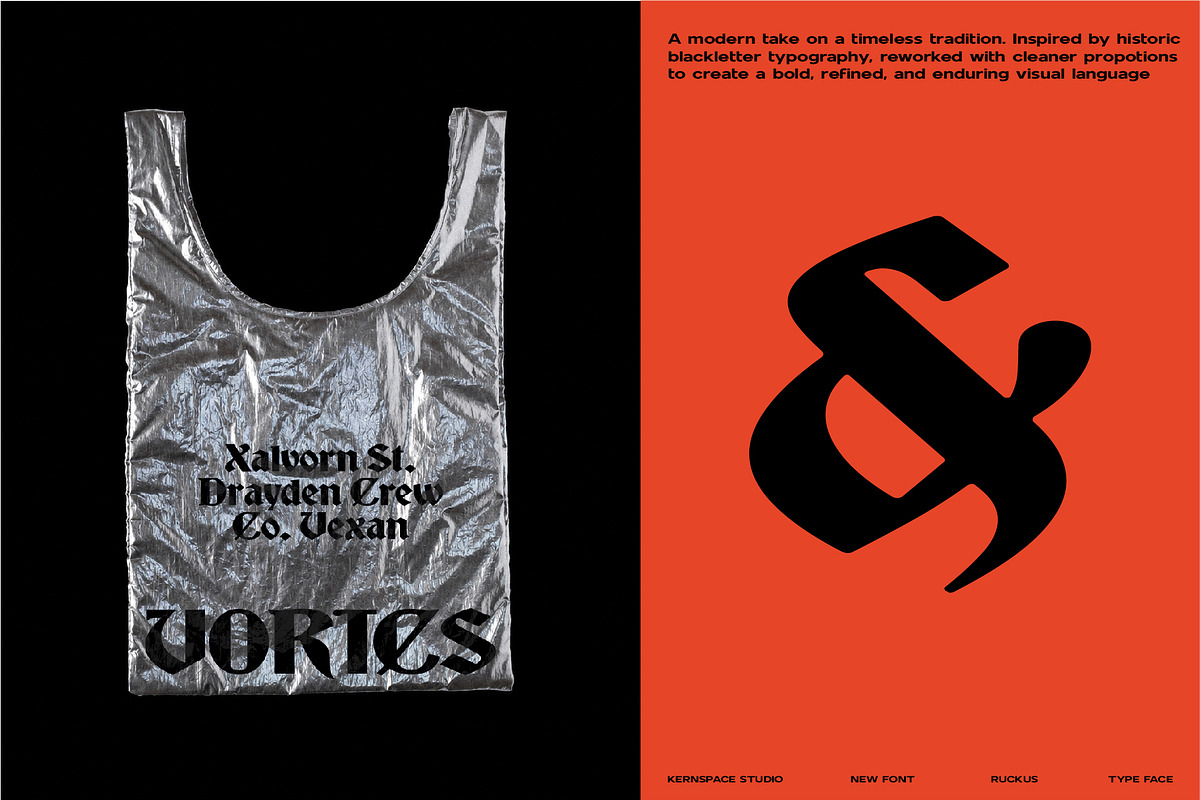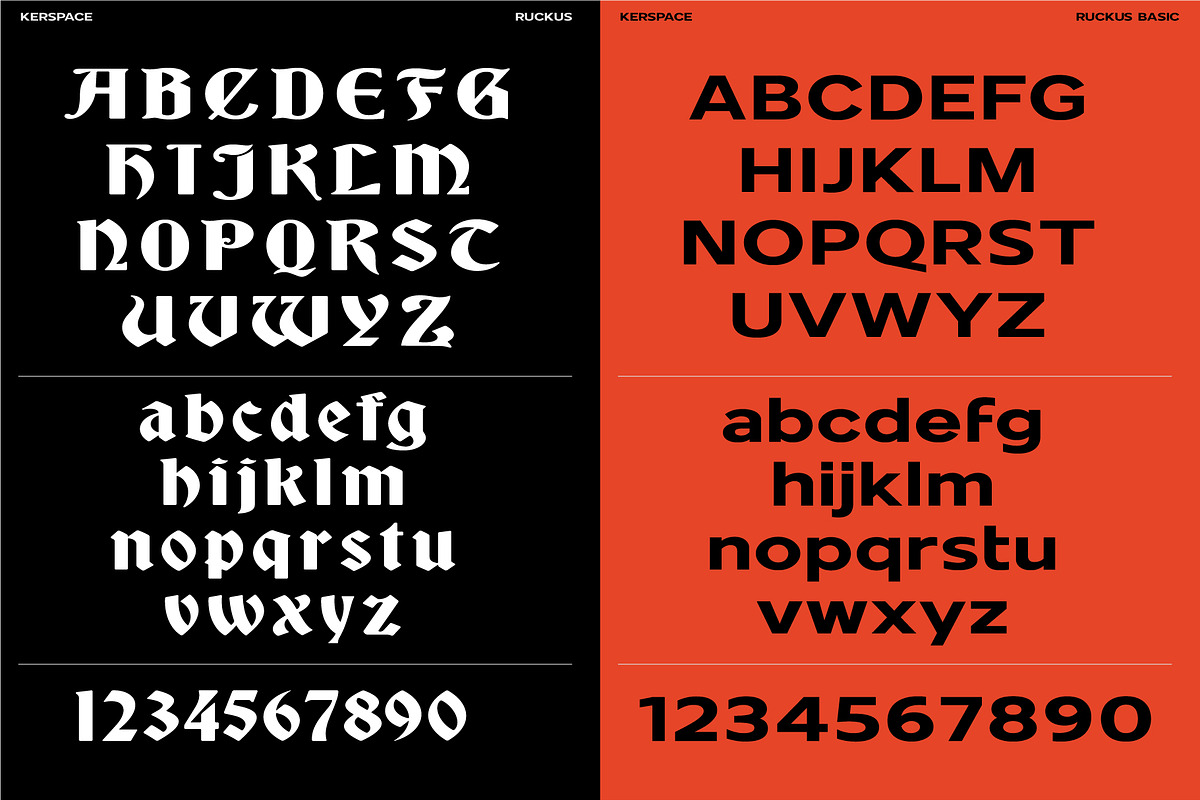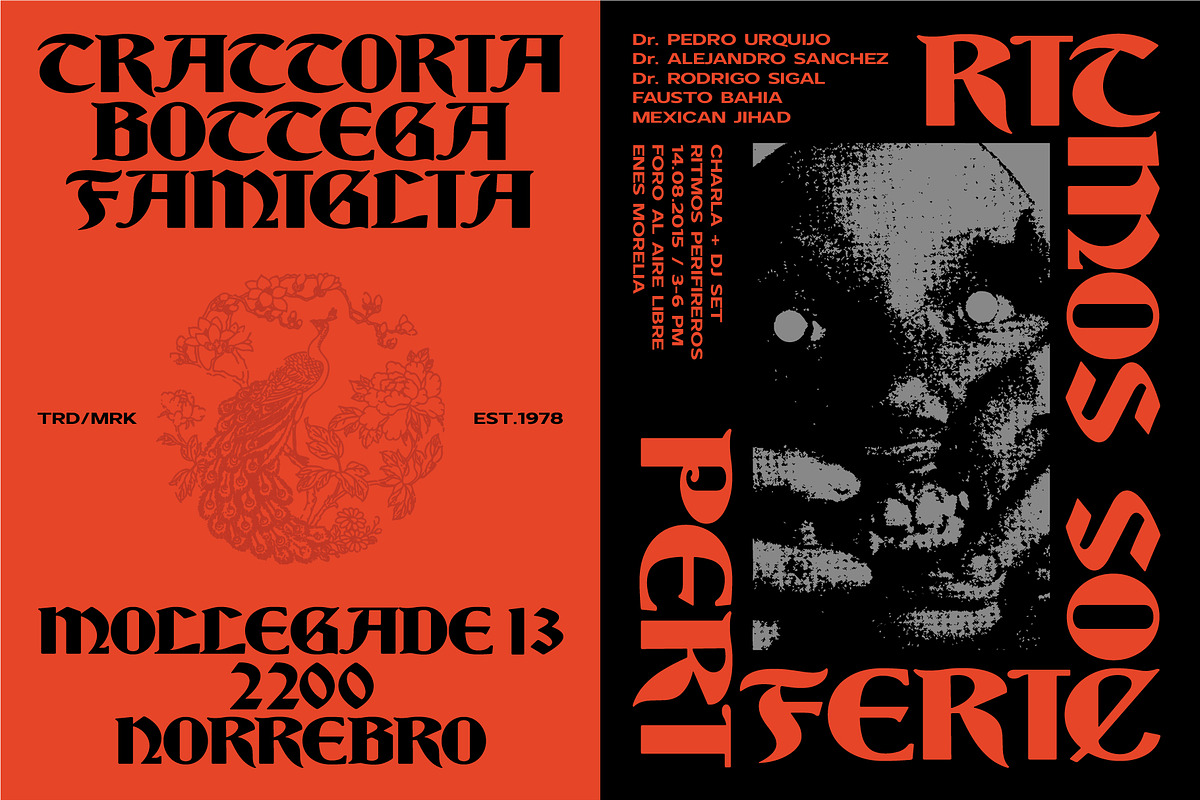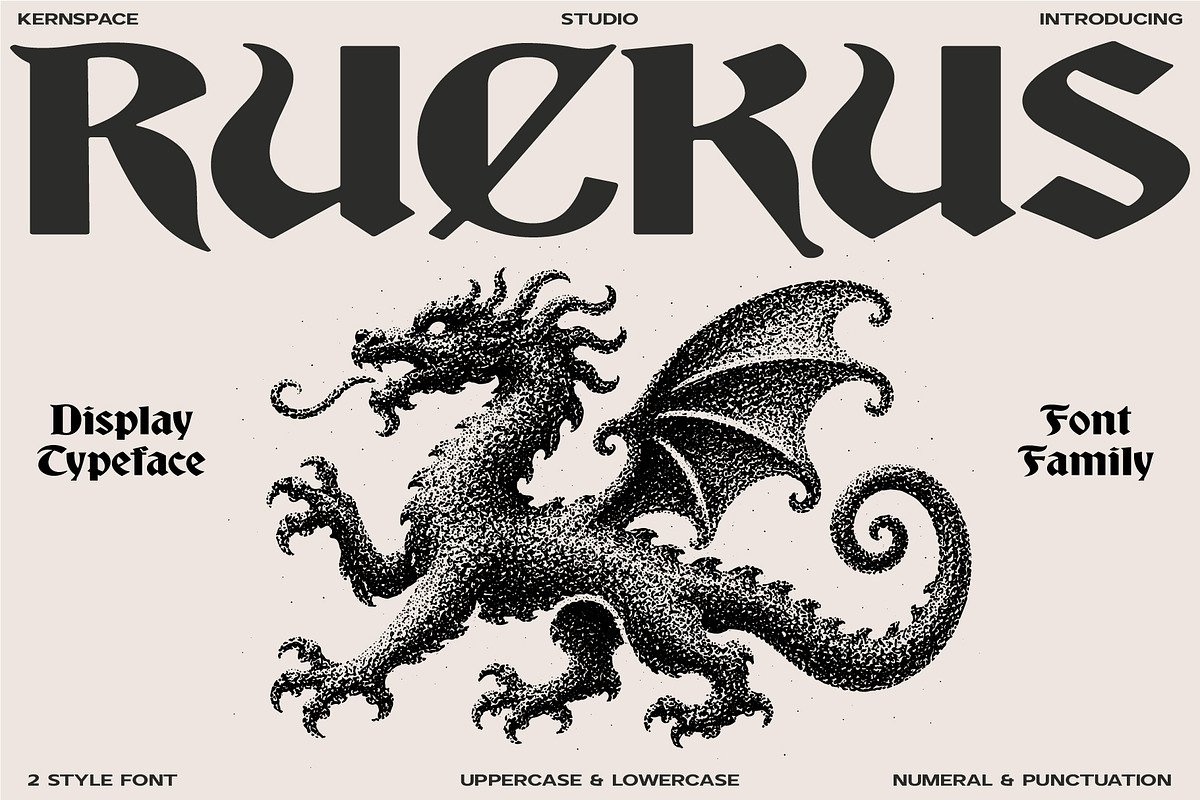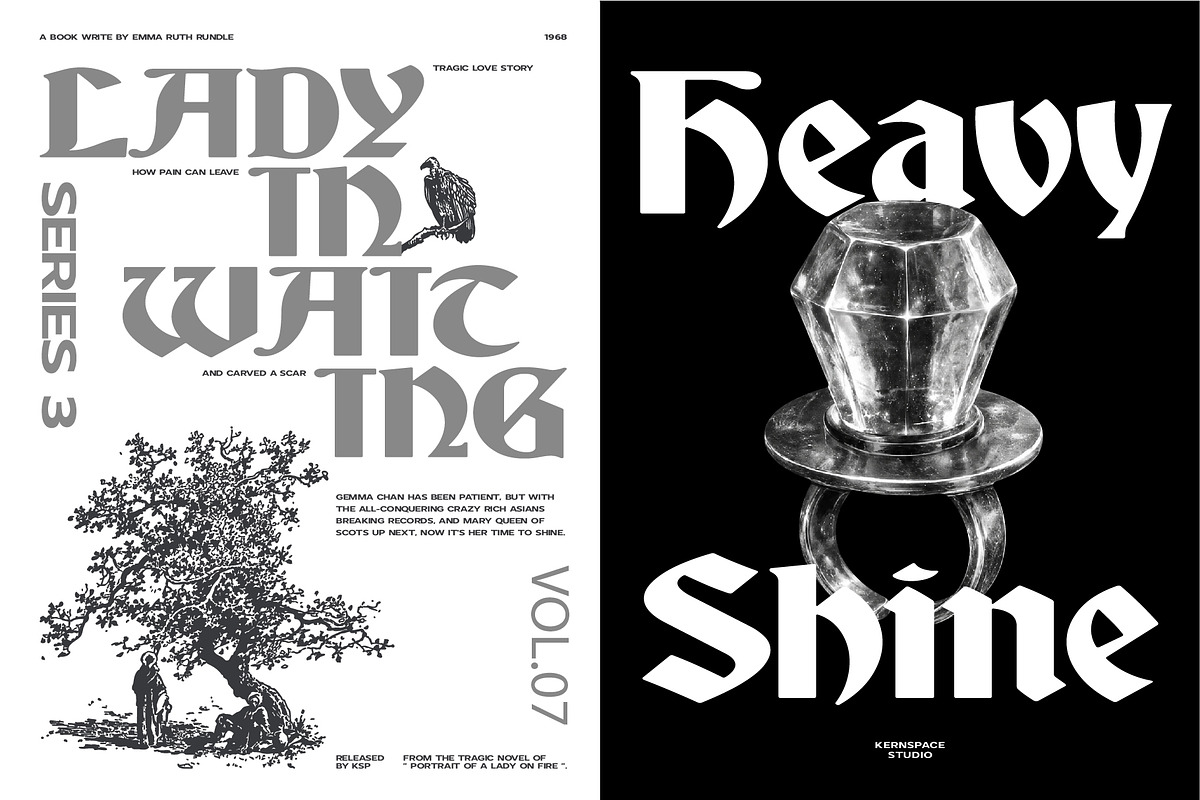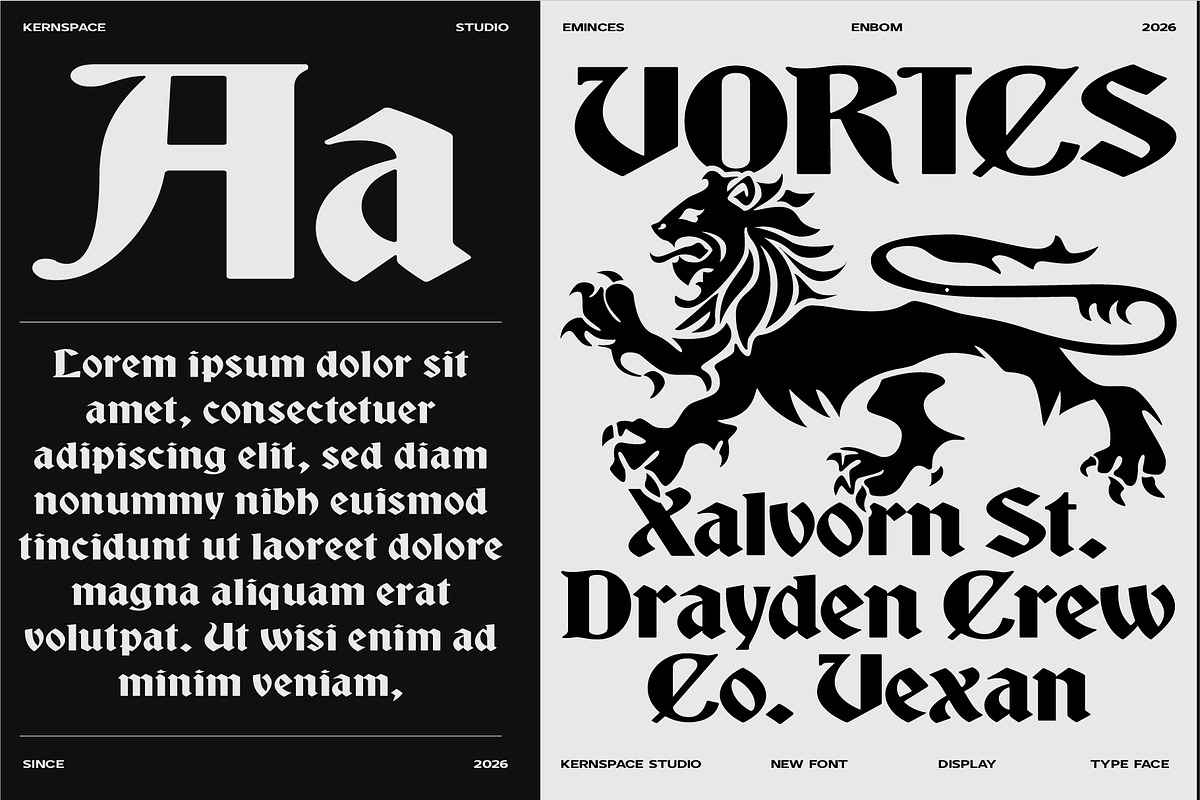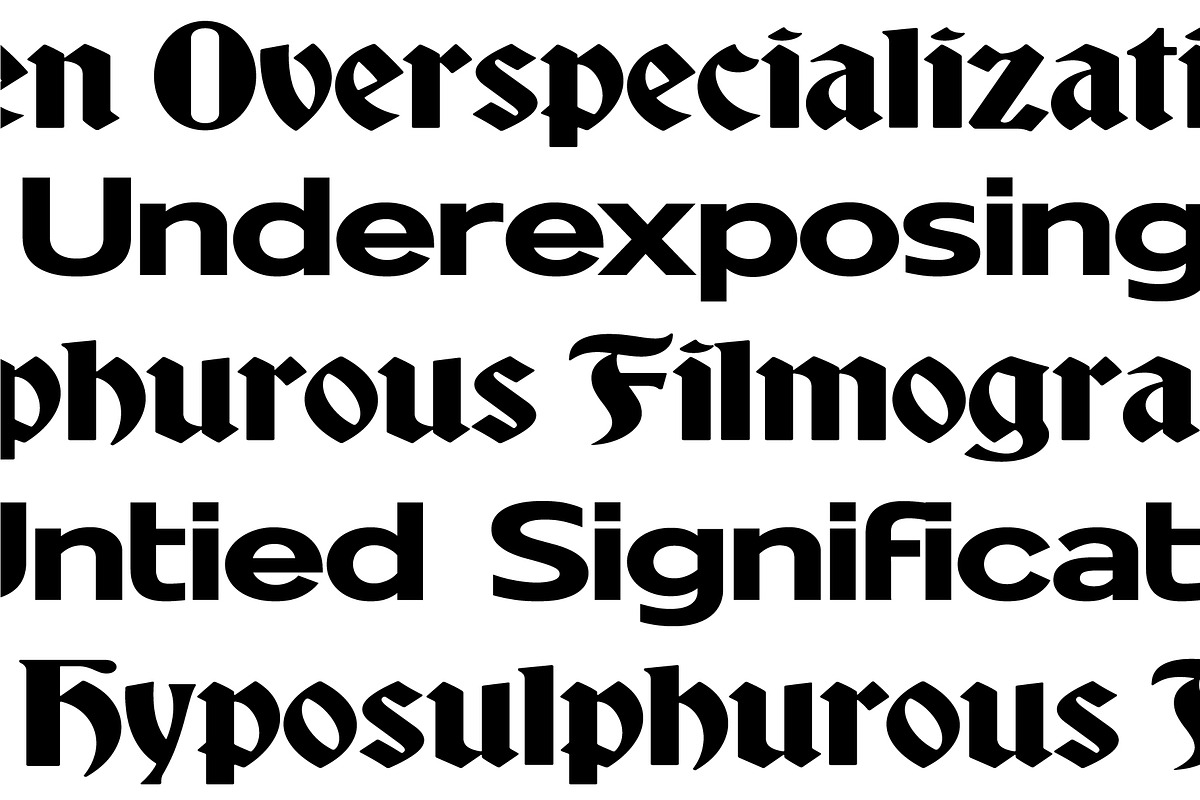
KSP Ruckus
A modern take on a timeless tradition. Inspired by historic blackletter typography, reworked with cleaner propotions to create a bold, refined, and enduring visual language. perfect for headlines, memorable logos, album covers, apparel graphics, posters, branding projects, and packaging designs.
Uppercase & Lowercase Characters
2 Style Fonts
Stylistic Medieval Character Design
Perfect for Logos, Posters, Apparel, Packaging & Branding